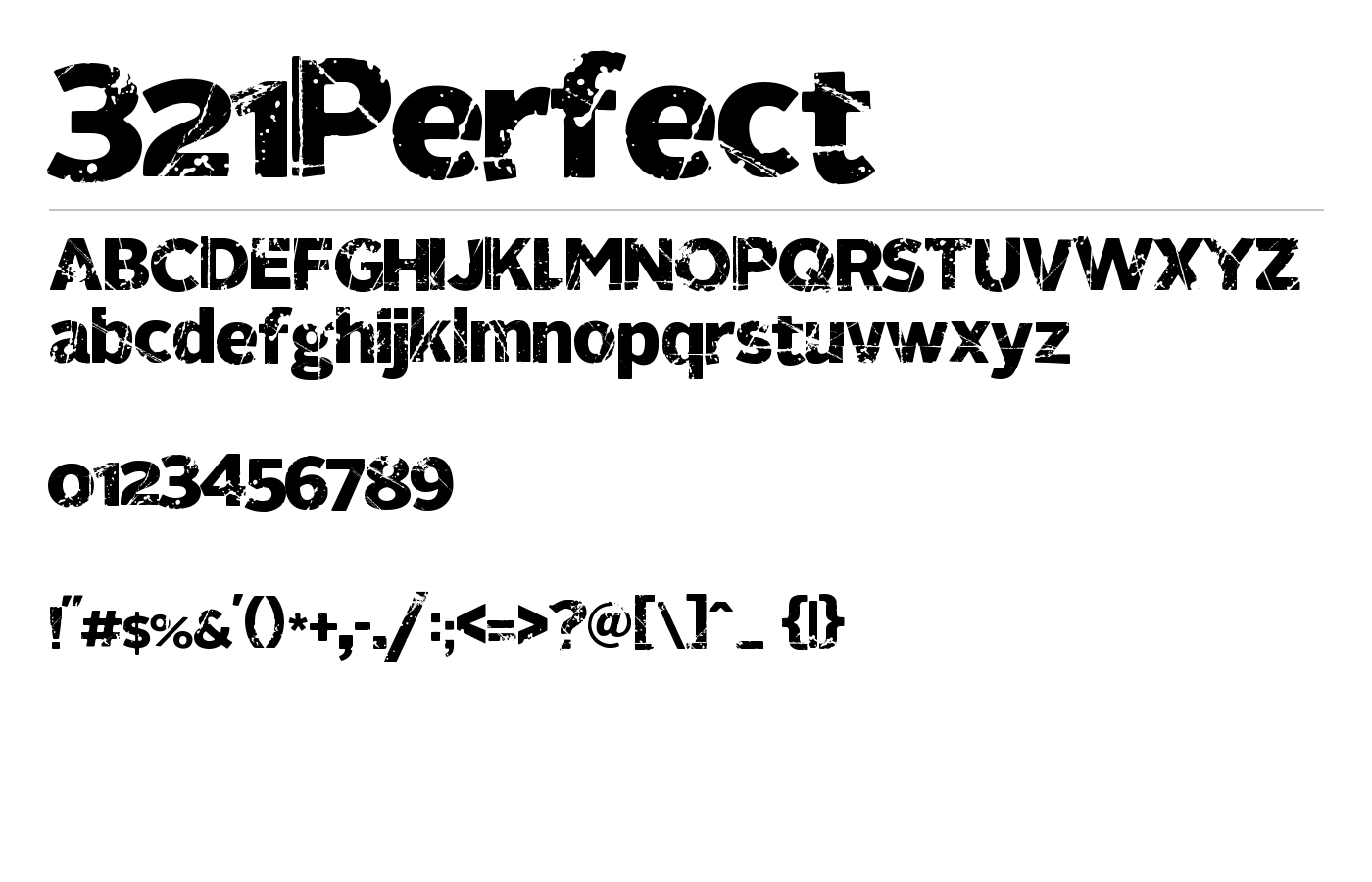
321Perfect is a bold, distressed sans-serif font that features heavy weight and a textured, grungy appearance, giving it an edgy, impactful character. Its wide letterforms with uneven rough patches create a strong, urban vibe, ideal for designs that want to convey raw energy and bold statements. This font works great for posters, streetwear branding, and any creative project needing a rebellious and attention-grabbing style.
321Perfect Font
About 321Perfect Font
| Font family | 321Perfect Font |
| Designer | Kenny Redman |